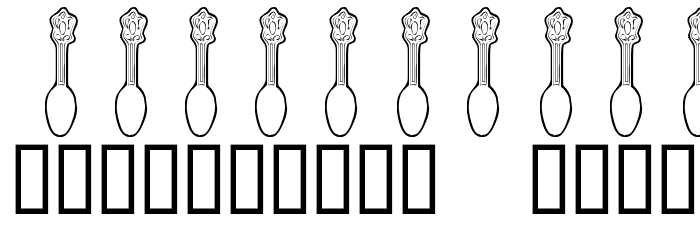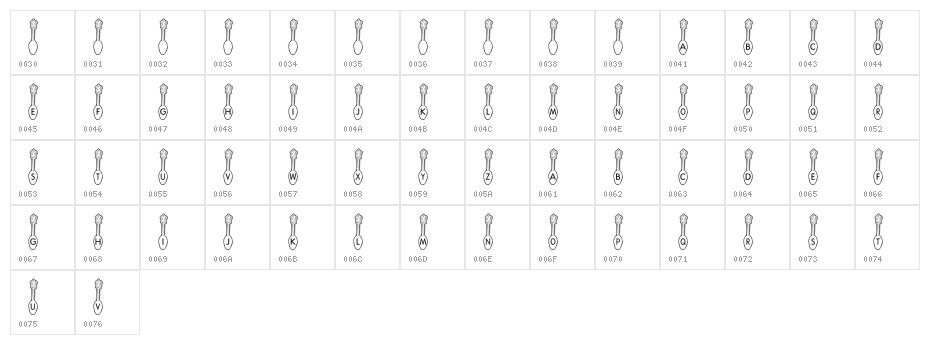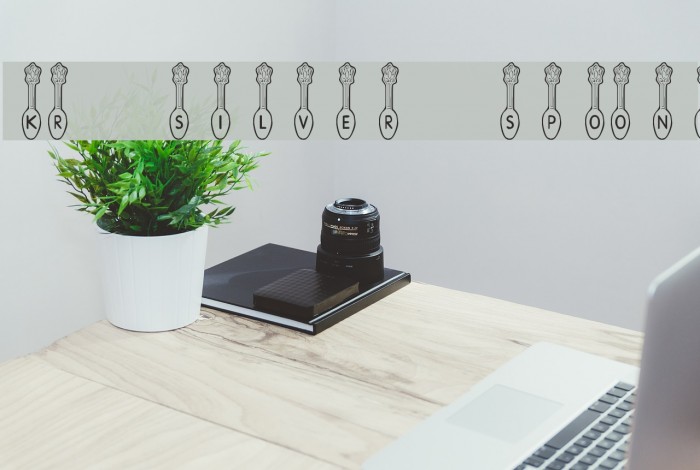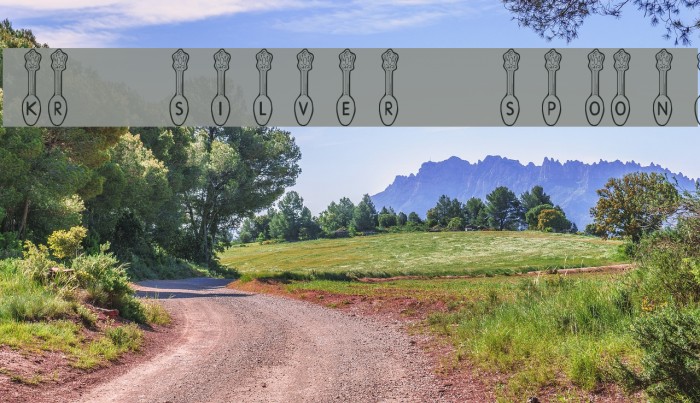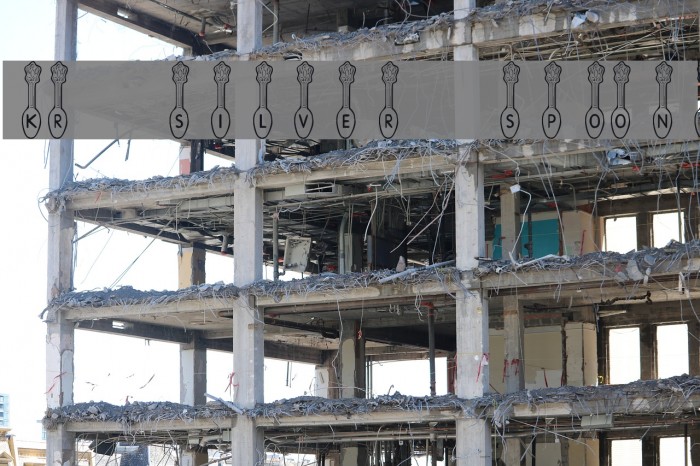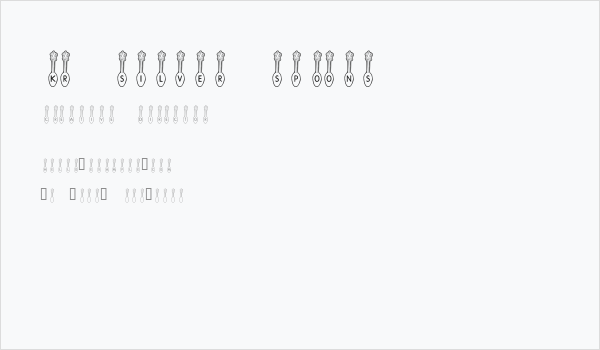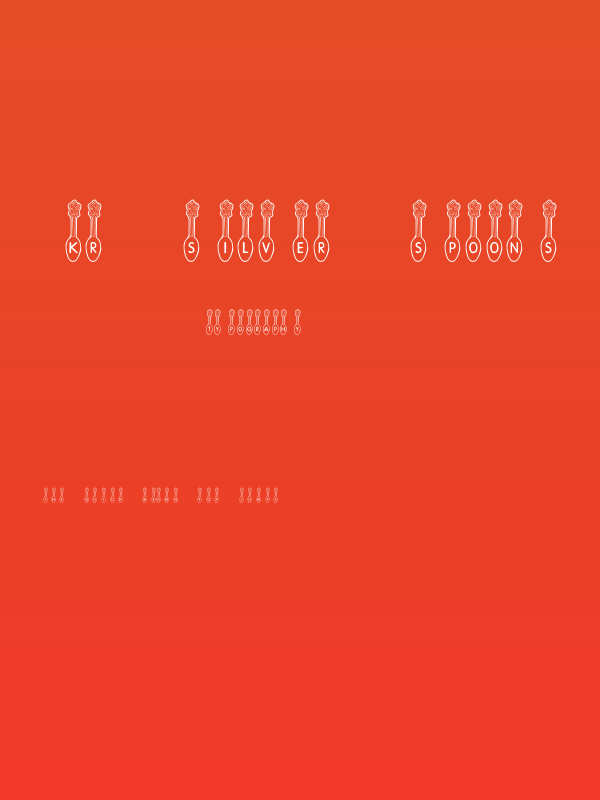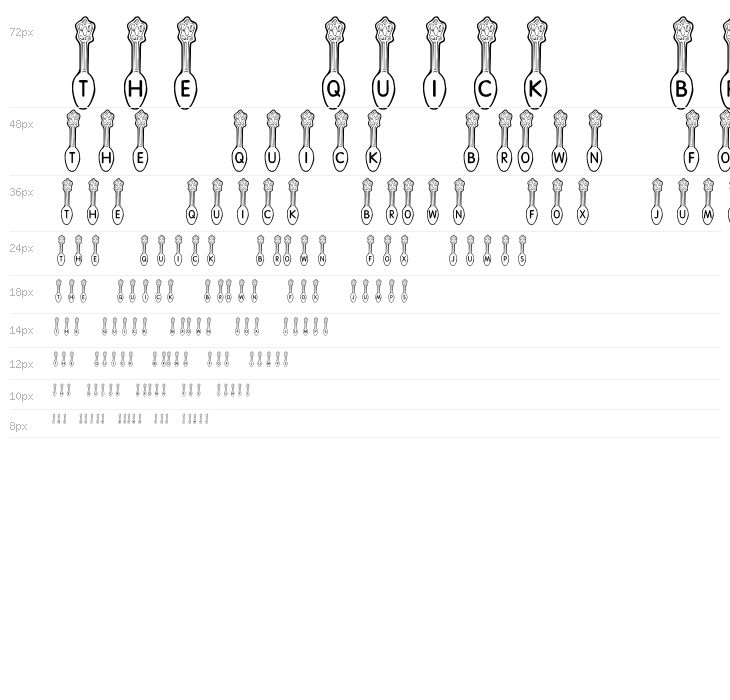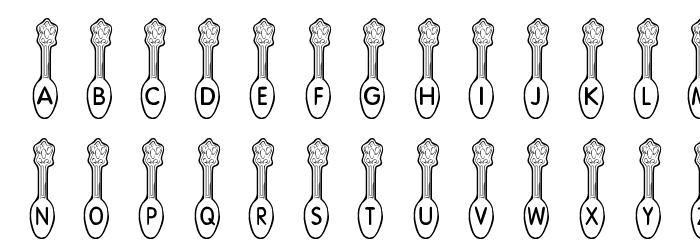
KR Silver Spoons Font
KR Silver Spoons Description
This decorative font features letters embedded within the heads of ornate spoon illustrations. Each character is uniquely designed to fit within the spoon's bowl, creating a playful and whimsical appearance. The font is highly stylized, with a focus on decorative elements that mimic the intricate designs often found on antique silverware. The characters are uppercase, and the overall design is consistent across the alphabet, maintaining a uniform look while allowing each letter to stand out. This font is ideal for projects that require a touch of elegance and creativity, such as invitations, themed events, or branding for culinary-related businesses.
| Proposed Projects | Ideal for invitations, themed events, culinary branding, and creative design projects. |